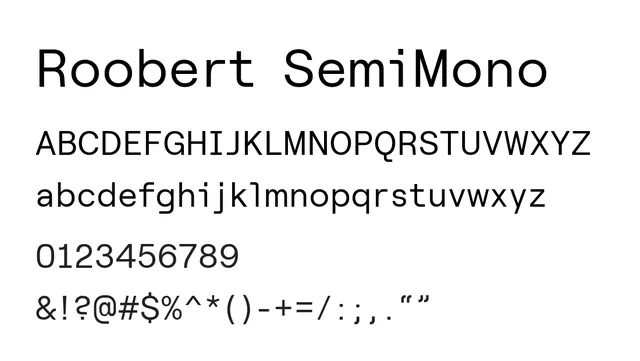
Roobert Mono
A geometric monospace font with even character widths and friendly proportions, optimized for code and terminal use.
Essential for code editors, terminals, and command-line interfaces where character width consistency is critical. The geometric letterforms improve code readability without sacrificing technical clarity.
Pairs with Roobert for UI elements, or Inconsolata for a more traditional monospace aesthetic in mixed contexts.